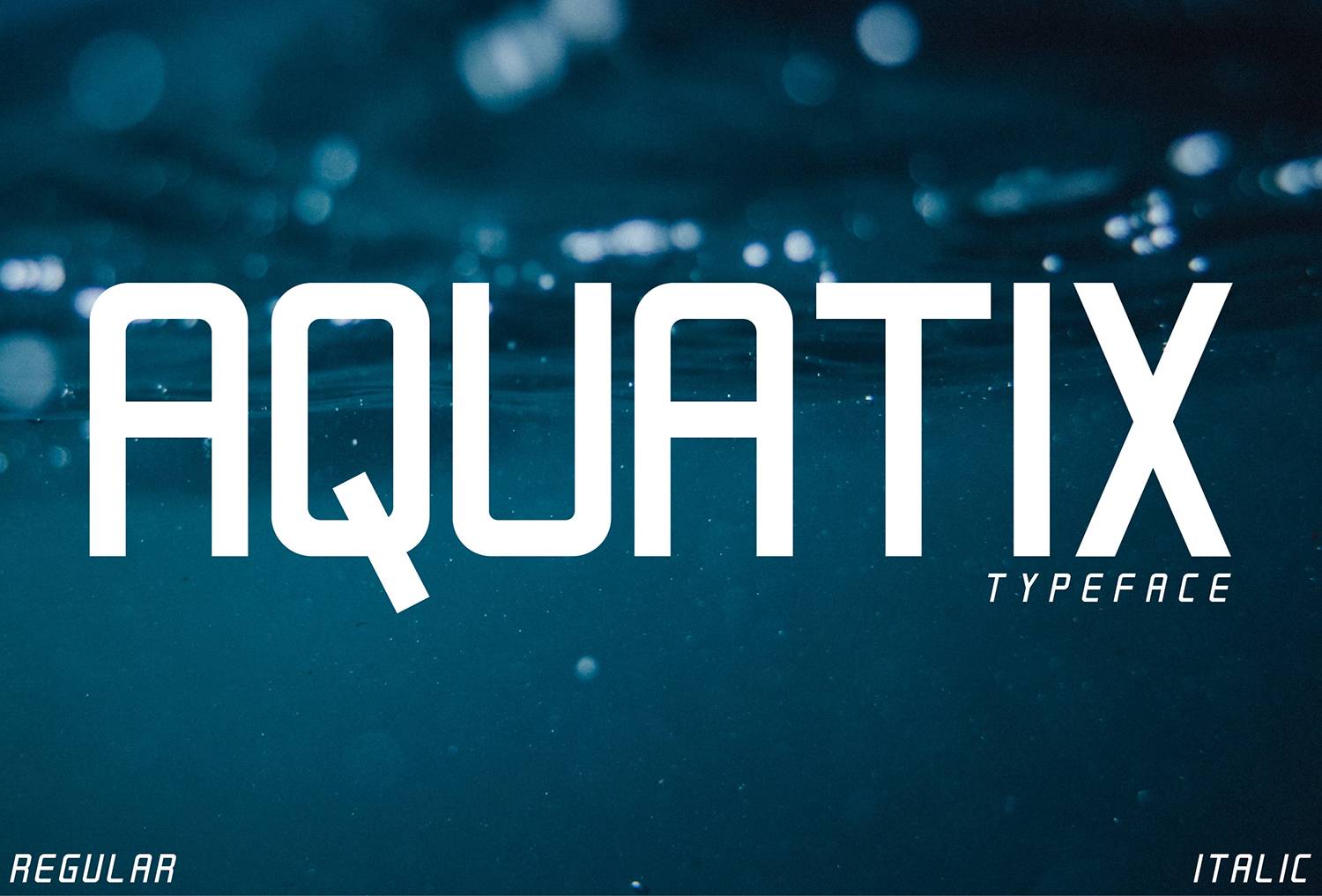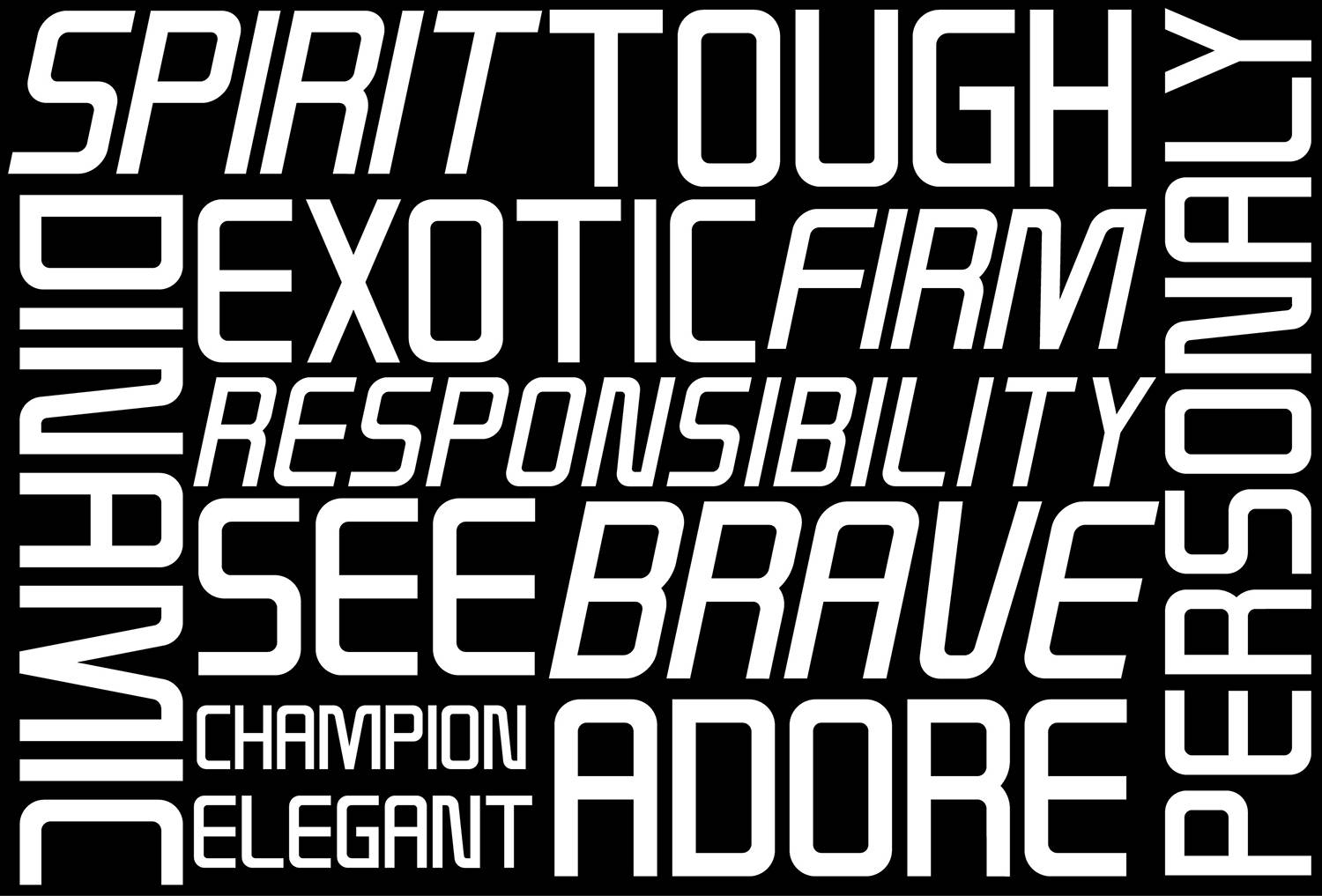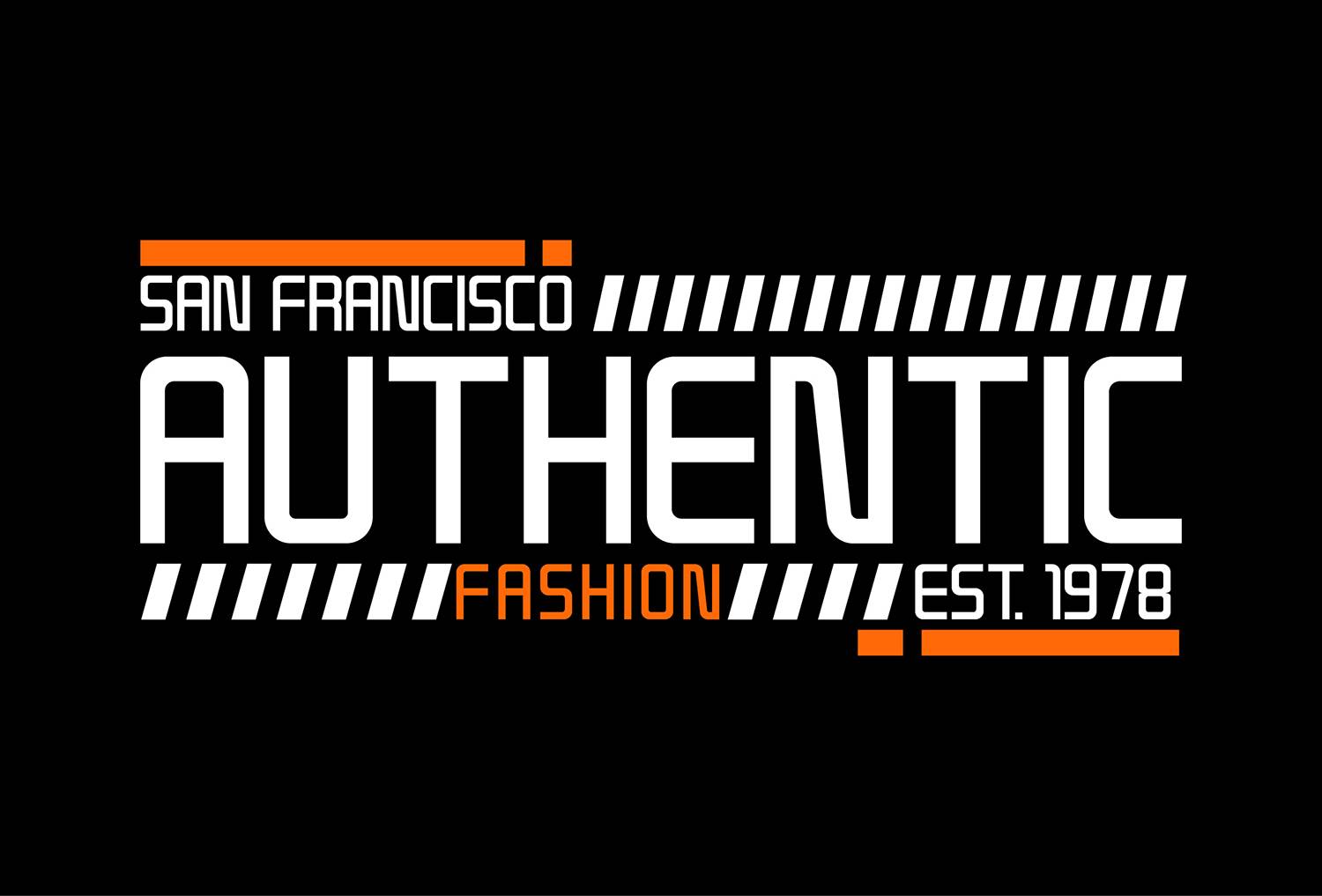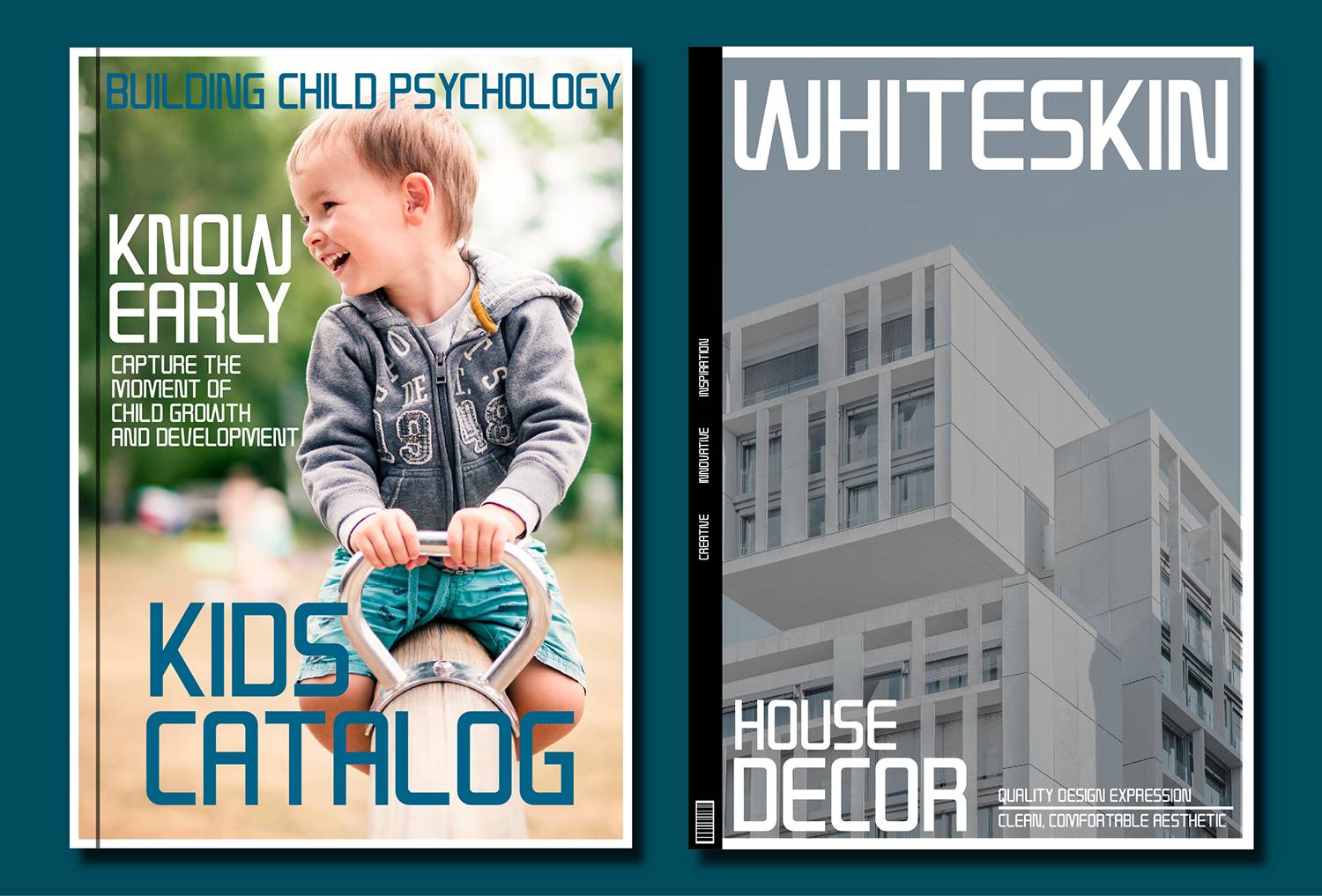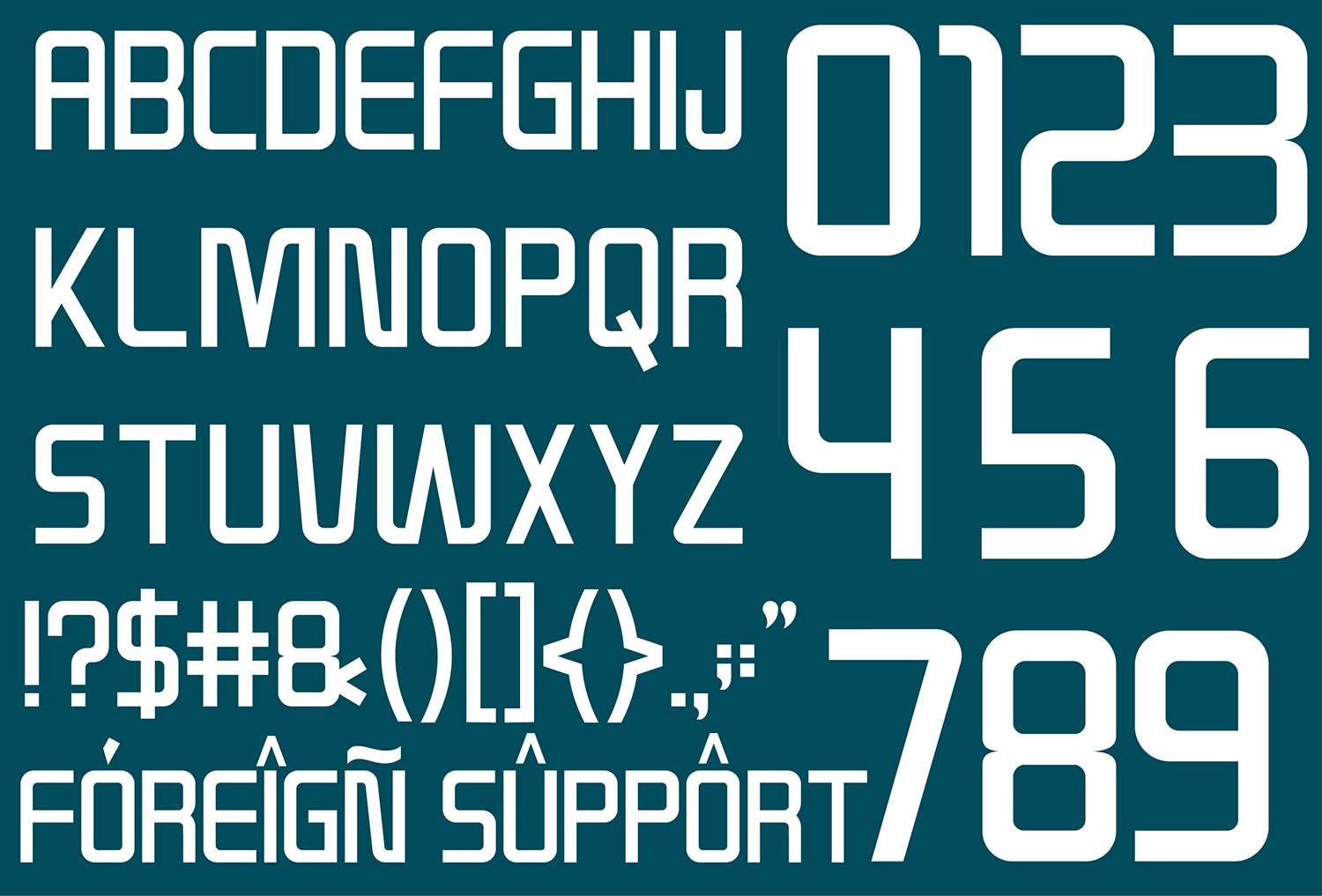
Aquatix is a modern, condensed sans serif font with a sleek, geometric design and a strong technical feel. Its clean lines, uniform stroke weight, and distinctive angular features make it ideal for creating a contemporary, futuristic look suited for technology brands, headlines, and digital interfaces. This font stands out in projects requiring a bold, modern aesthetic with excellent readability and a compact footprint.
Aquatix Font
About Aquatix Font
| Designer | Akhmad riyan danuarta |